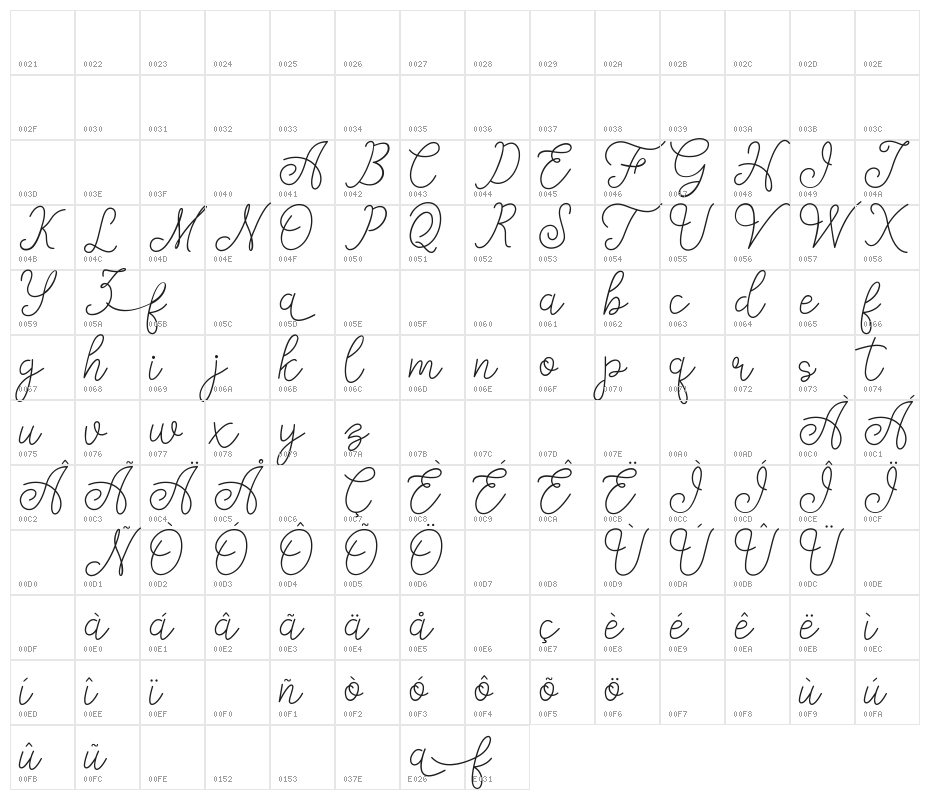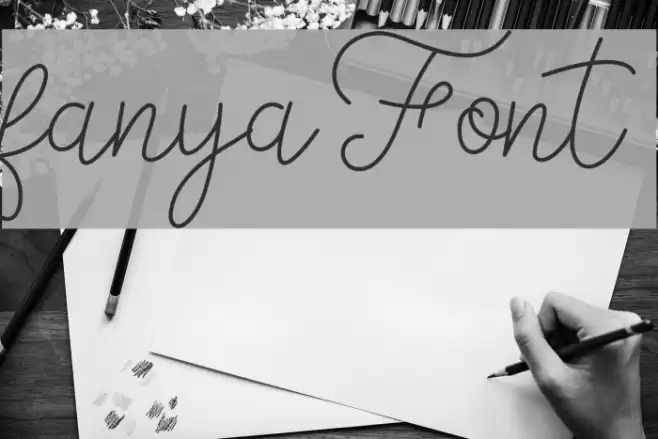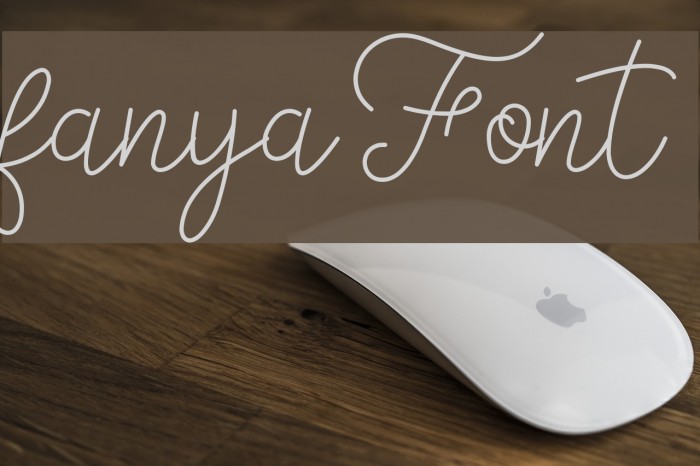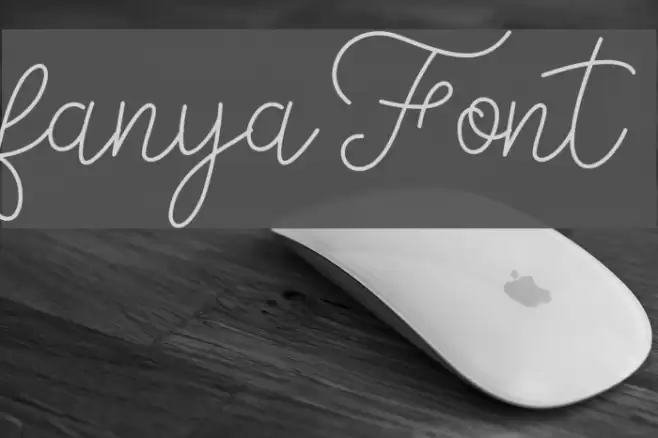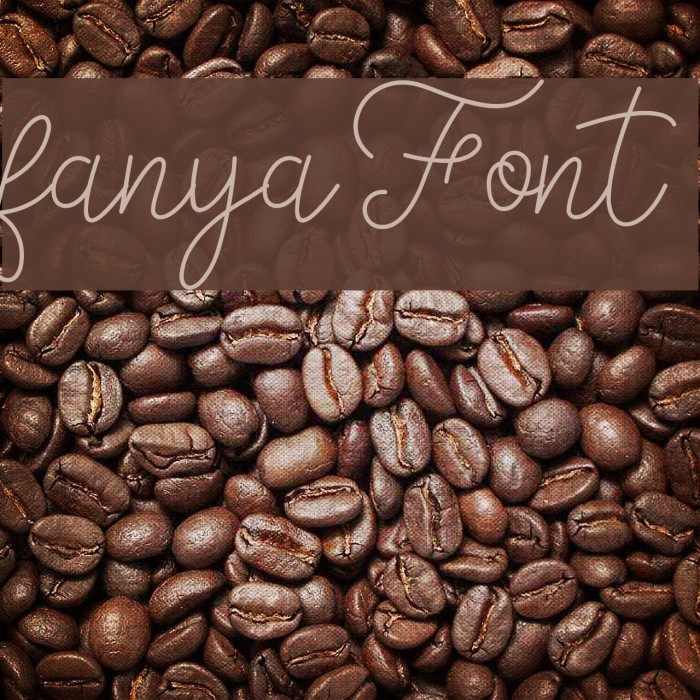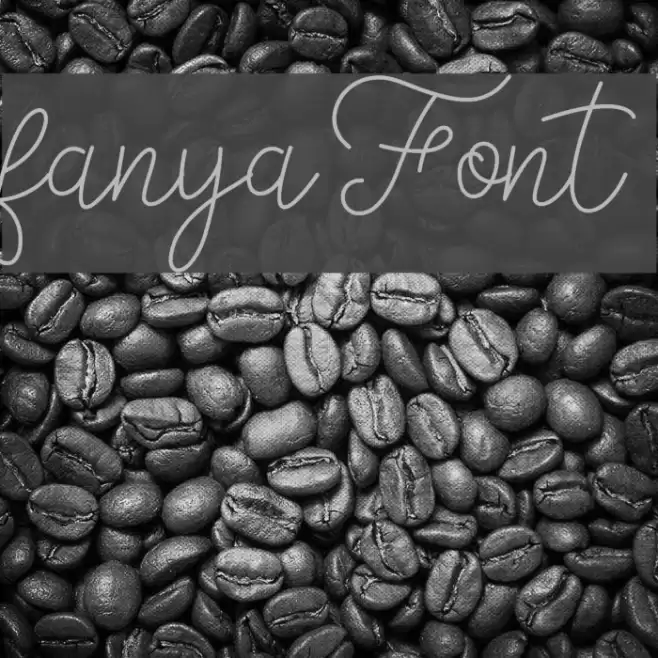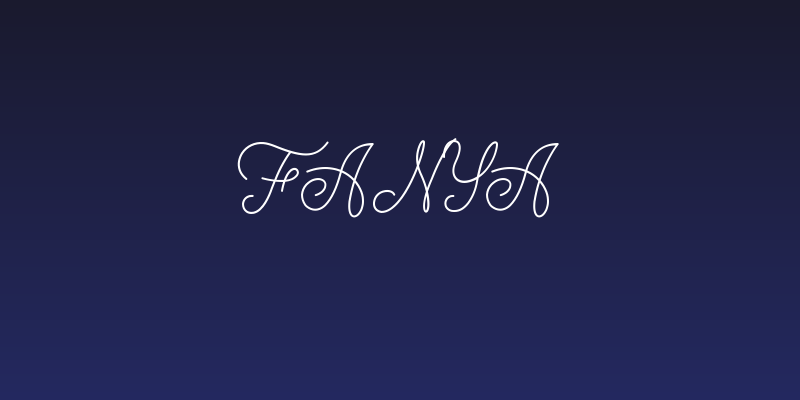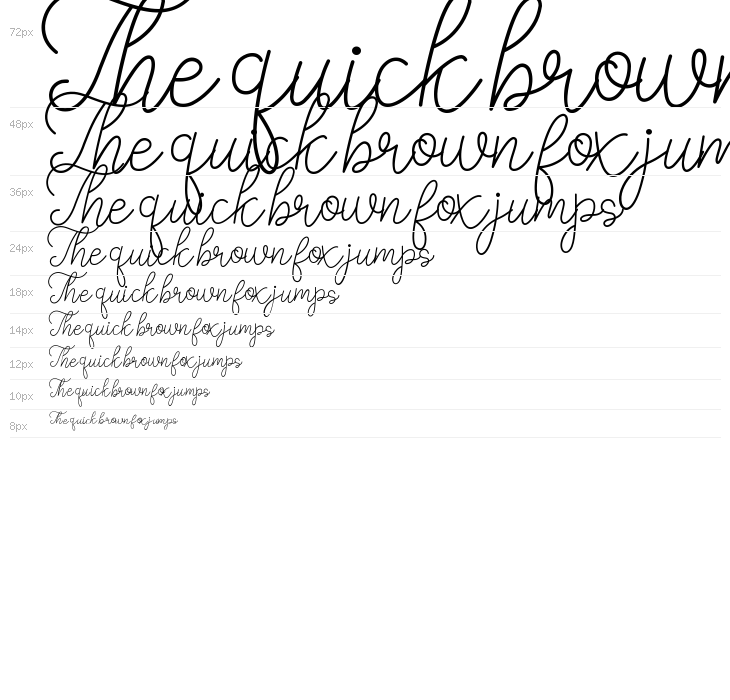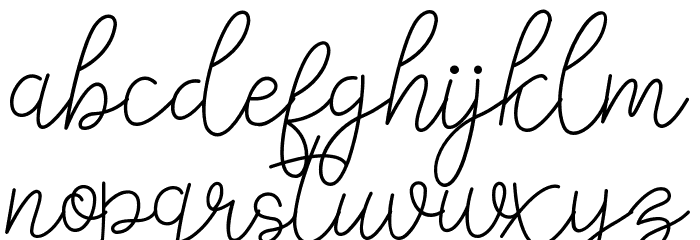
fanya Font
fanya Description
This elegant script font features a flowing, cursive style with intricate loops and swirls, giving it a sophisticated and artistic appearance. The uppercase letters are characterized by their elaborate flourishes, while the lowercase letters maintain a consistent, smooth flow. The font's design emphasizes a hand-drawn aesthetic, making it ideal for projects that require a personal touch. The numerals and special characters are crafted with the same attention to detail, ensuring a cohesive look across all text elements.
Overall StyleElegant, Artistic
Use CaseInvitations, Branding, Decorative text
Proposed ProjectsIdeal for wedding invitations, greeting cards, branding, and elegant packaging designs.